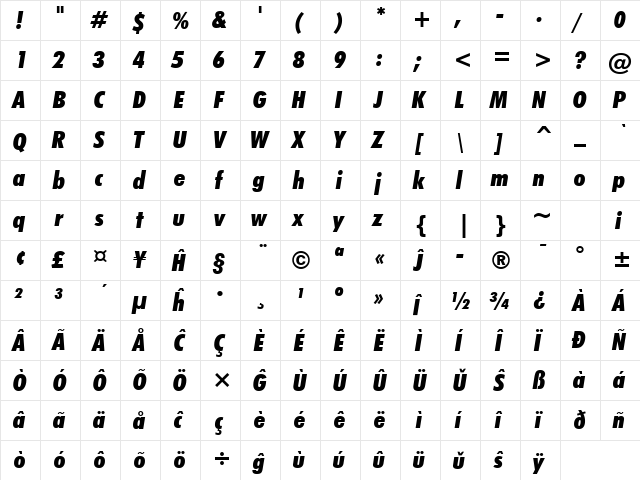
Futura Eo Extra Black Italic
Design Context for Futura Eo Typeface
Futura Eo channels digital-age aesthetics through its sharp, structured letterforms — ideal for brands that want to signal innovation. Its italic angle brings a sense of urgency and motion to the letterforms.
Pro Tip: Use Futura Eo in combination with a neutral sans for body text. Let it define the brand voice in headlines while keeping reading comfortable elsewhere.